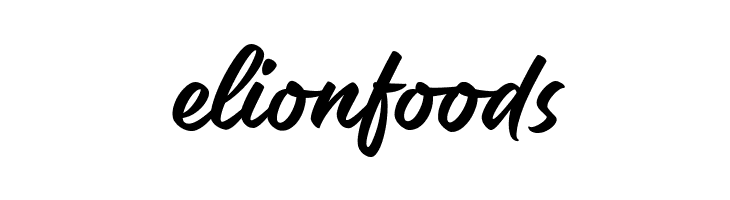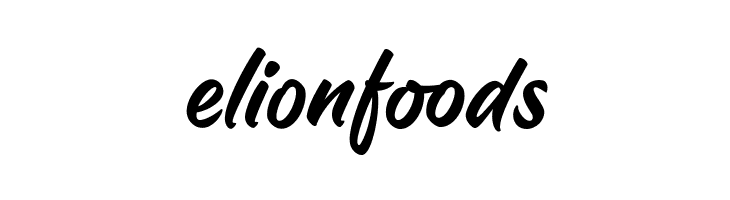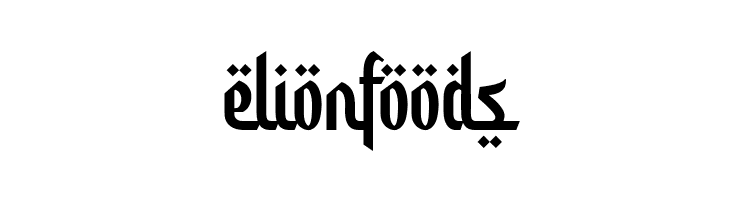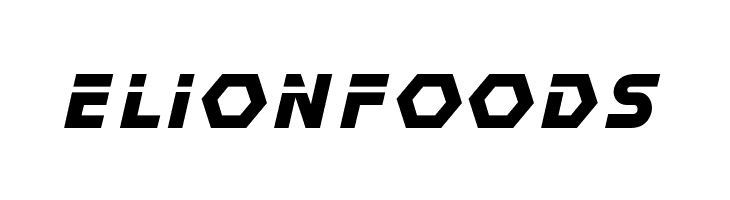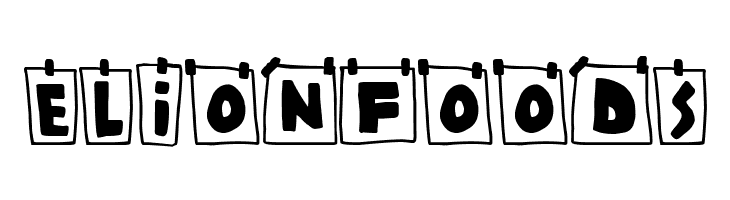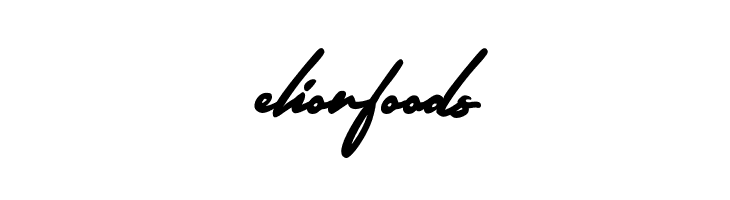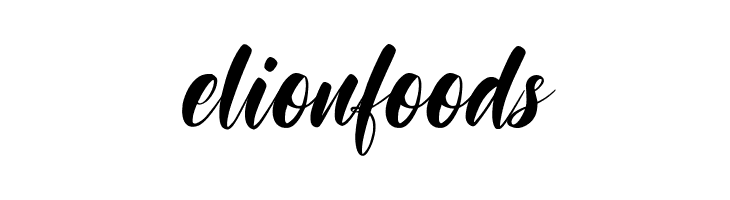
A modern, italic font with a geometric and clean design.
A bold, cursive font with dynamic, flowing strokes and high contrast.
A bold, cursive font with dynamic and flowing characters.
A decorative and bold font with calligraphic influences, ideal for display use.
A bold, angular font with a modern, dynamic style.
A playful, hand-drawn font with a boxed, doodle-like appearance.
A playful, handwritten script font with smooth, flowing strokes.
A playful, hand-drawn font with characters enclosed in hanging frames.
A sophisticated script font with flowing, cursive lines.
A dynamic and elegant script font with fluid letterforms and medium contrast.